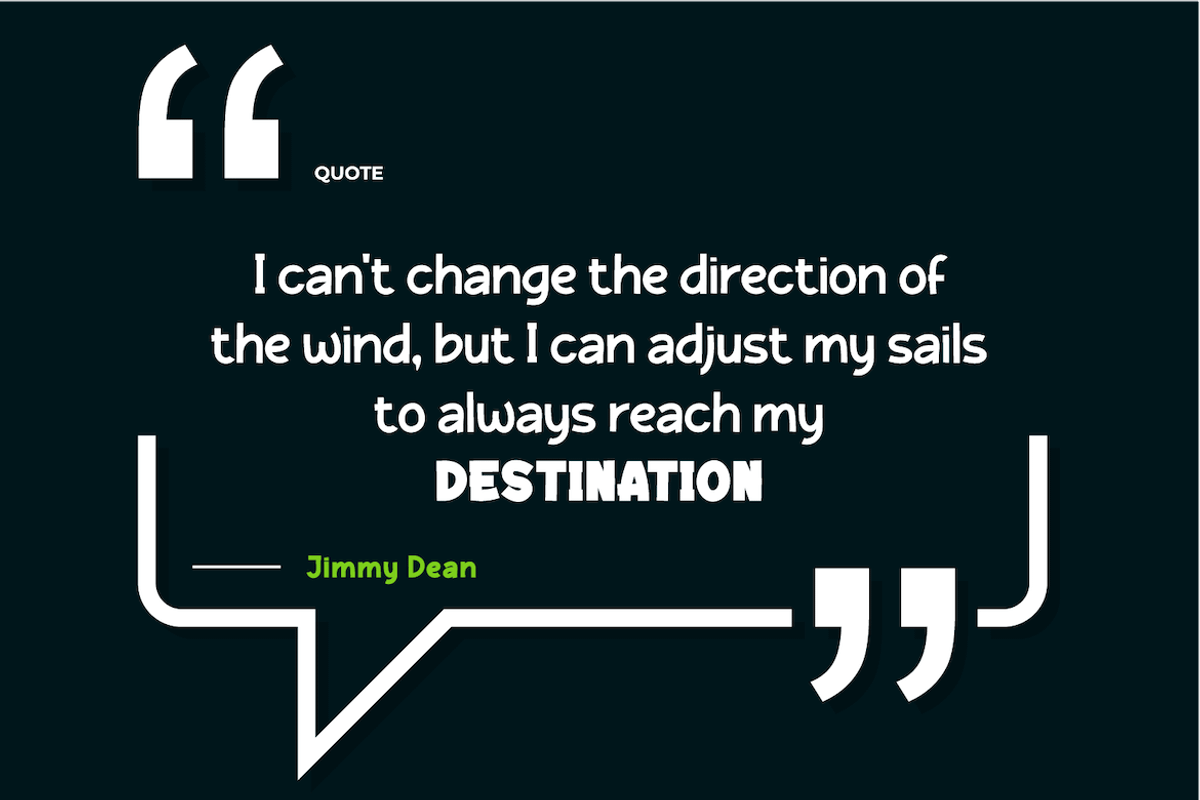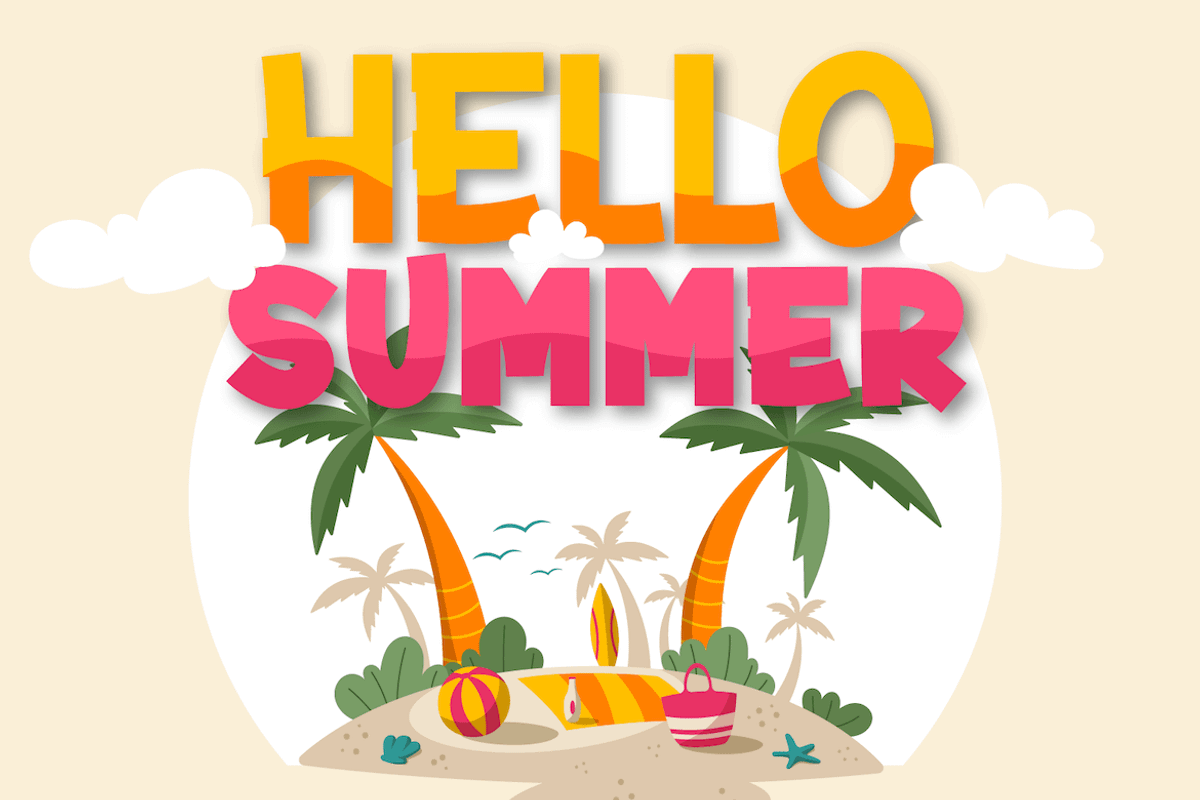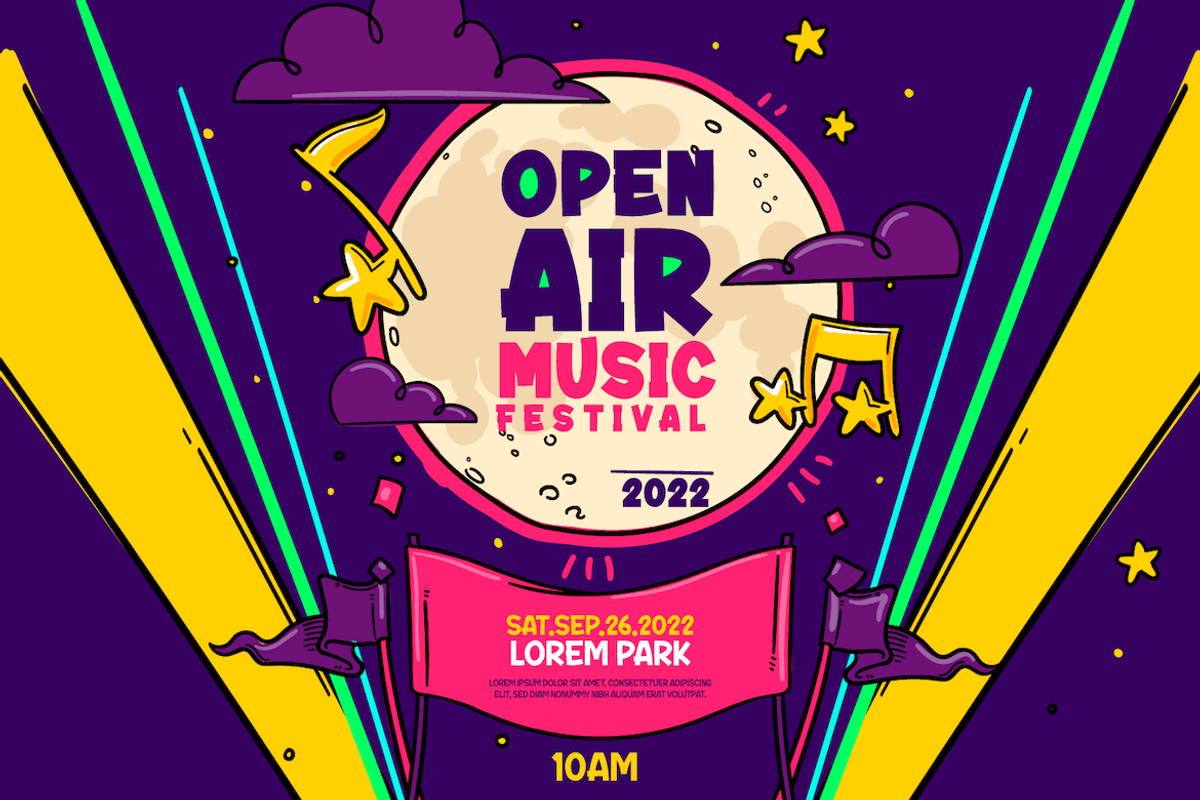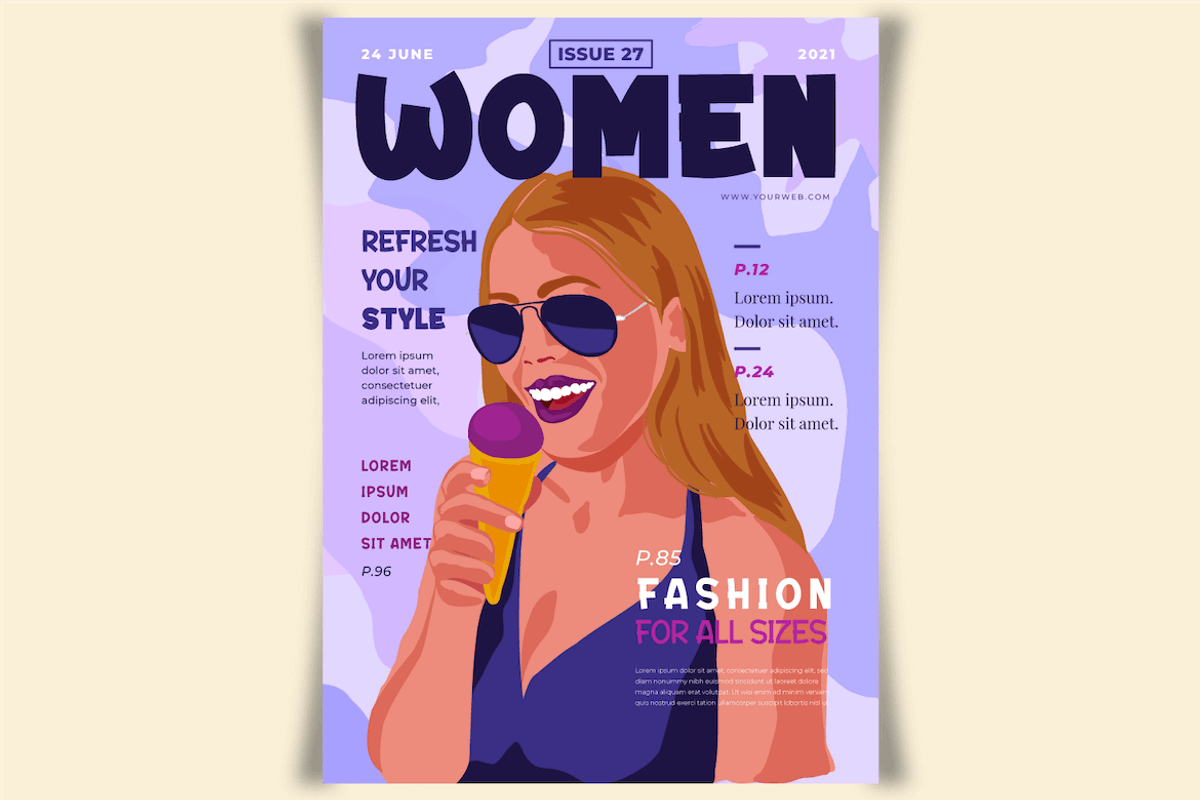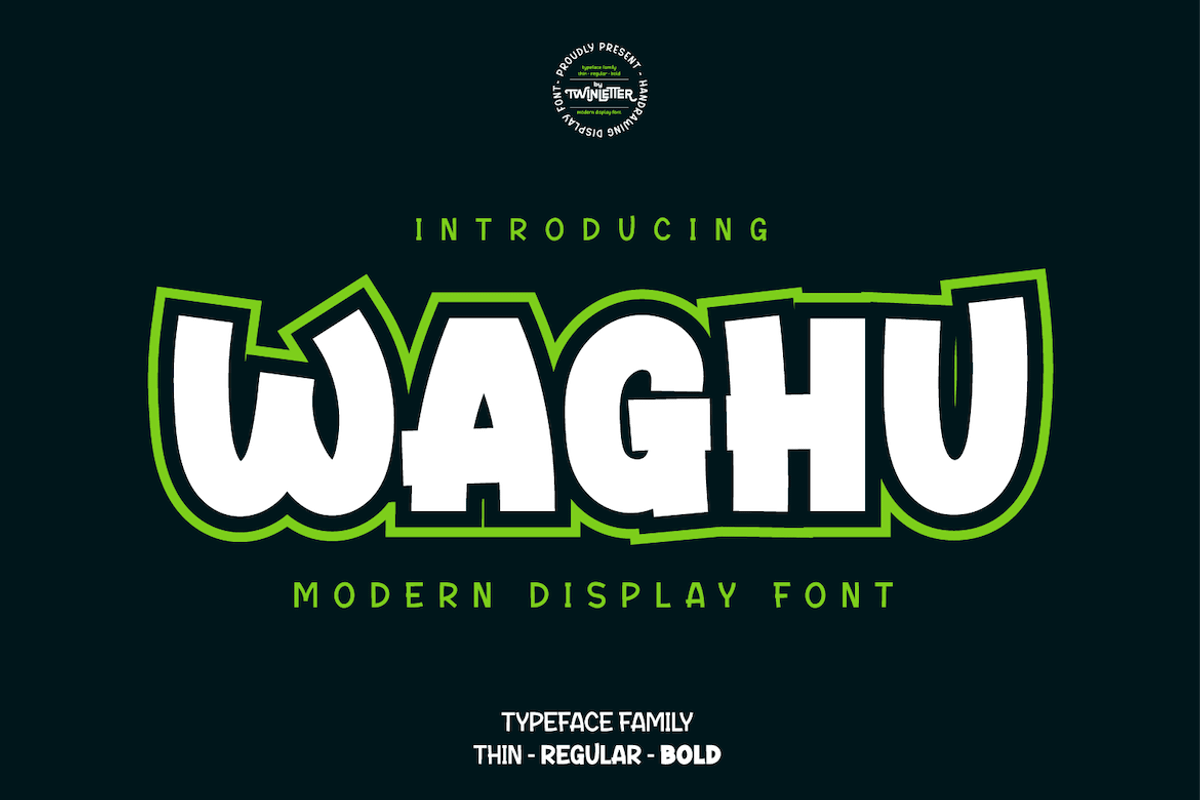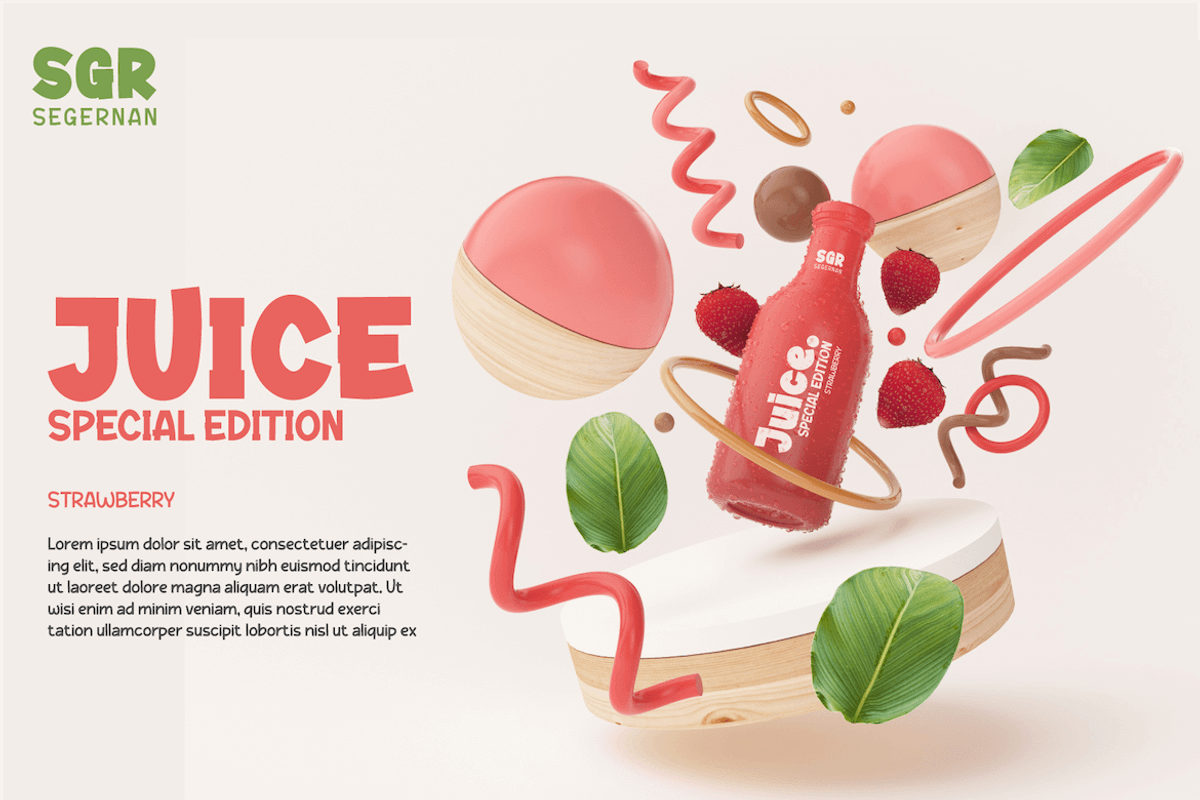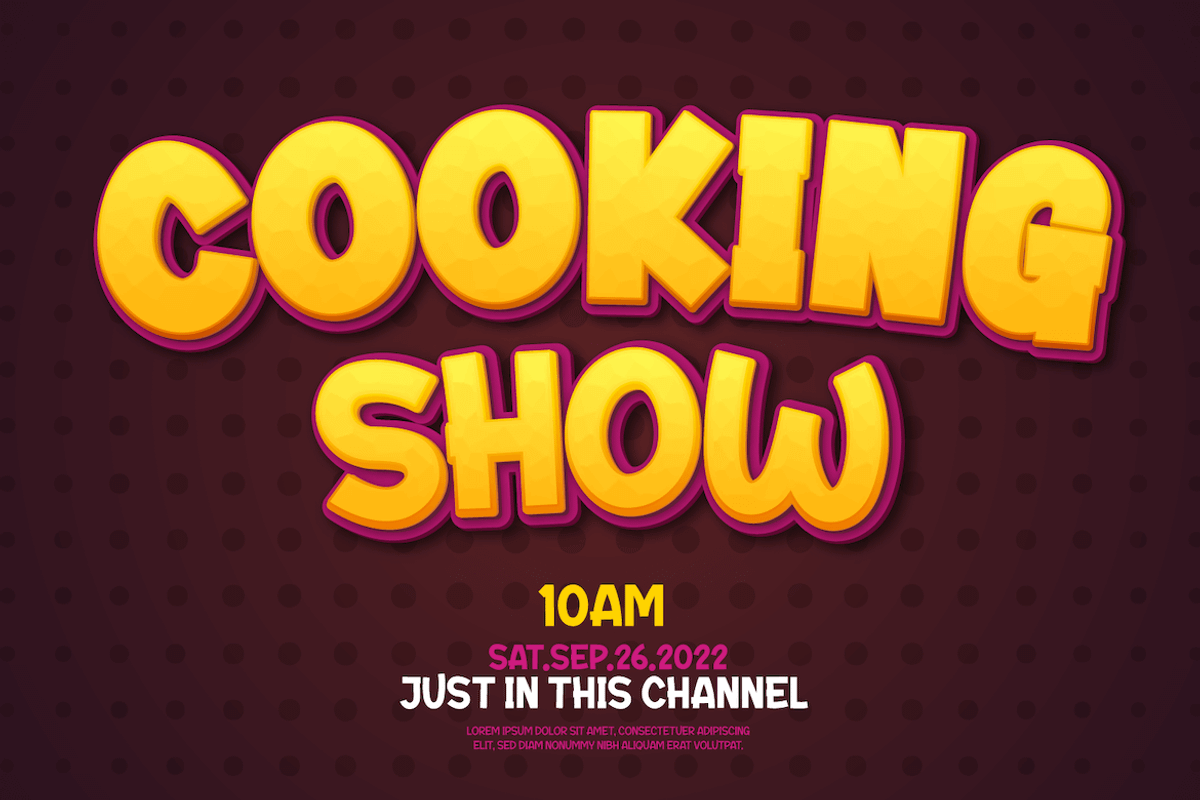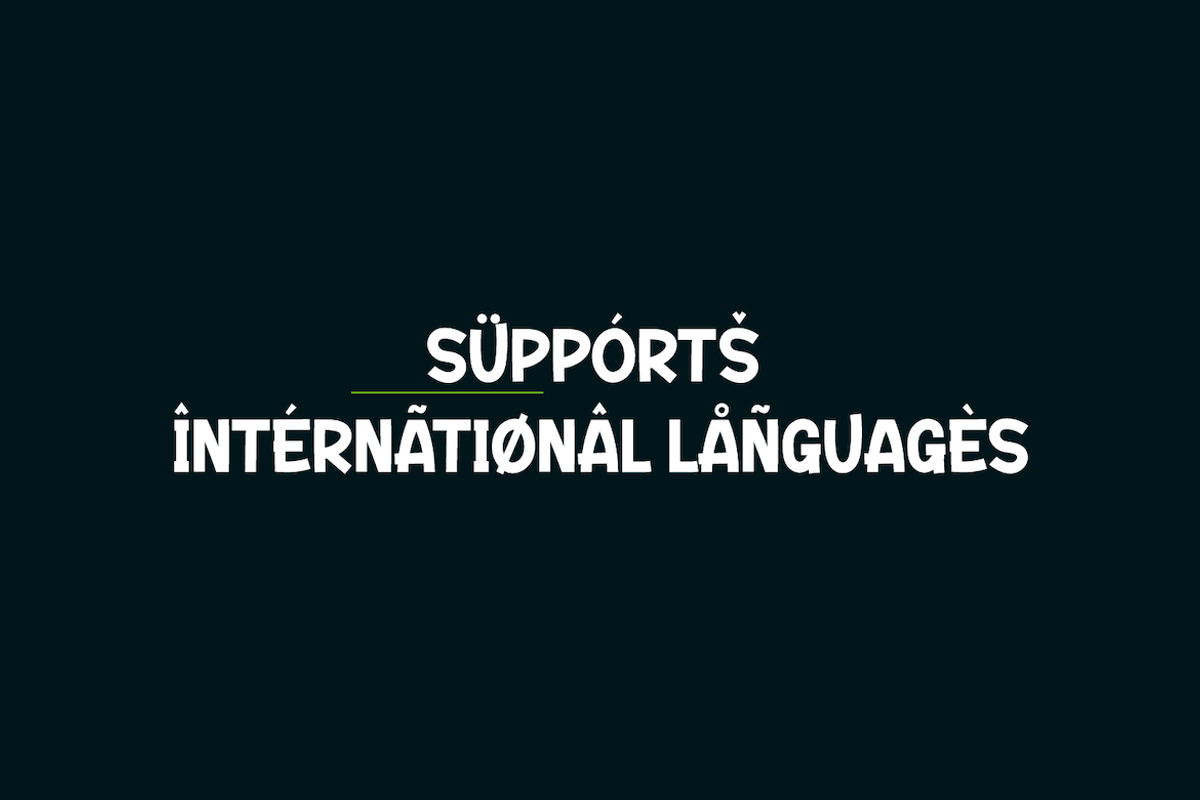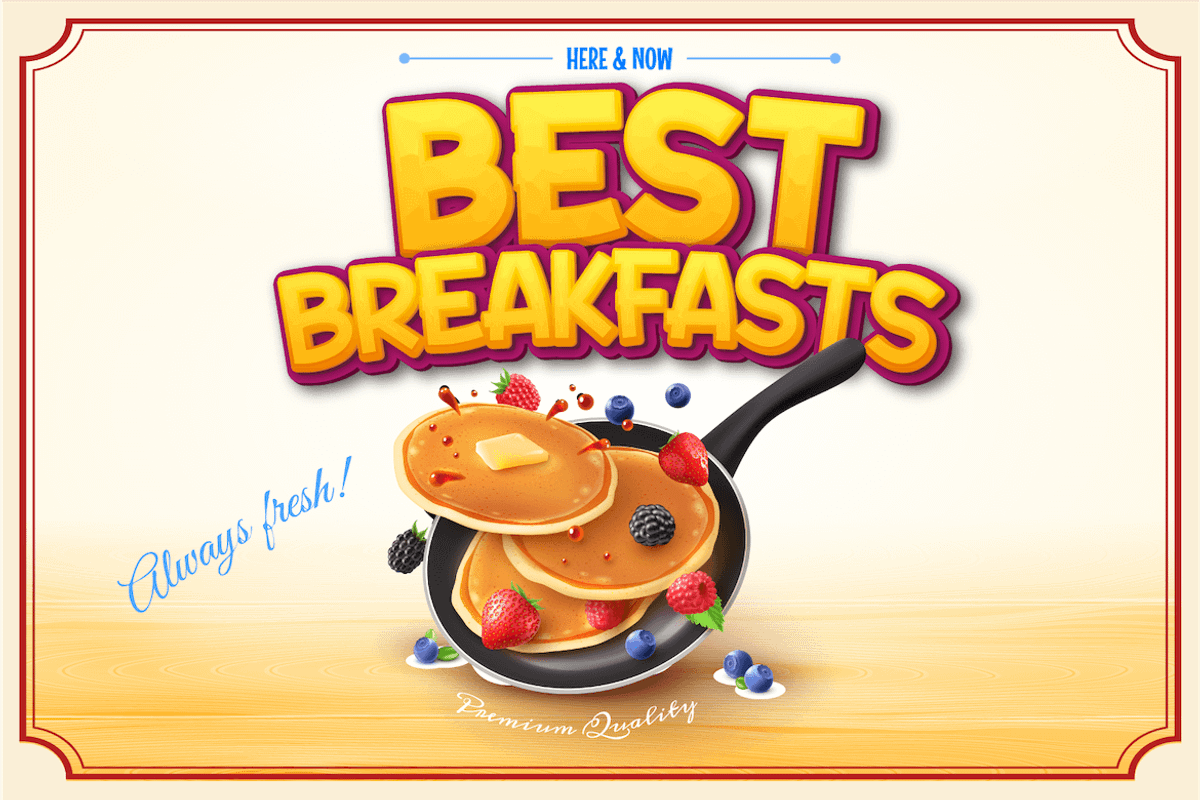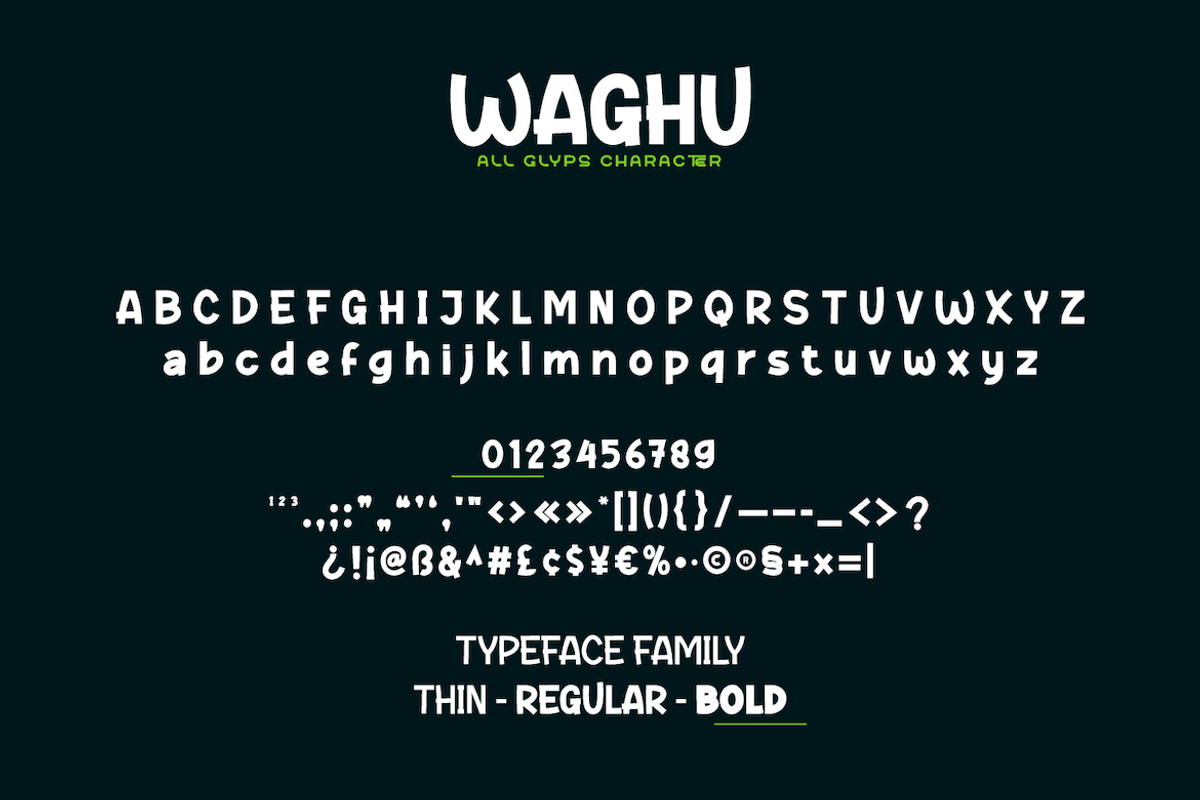
Waghu
Waghu is an abstract font that you can use for casual design purposes. It is also right for you to use it for formal design purposes, this font can adapt beautifully if you use it in your project. there are three alternatives thin, regular, and bold. makes it easier for you to combine them according to your needs.
This handwritten font is perfect for children’s magazines, drink banners, games, posters, beverages, outdoor events, thumbnails, food banners, cheerful writing, film titles, quotes, titles, logos, and various kinds of projects you need, of course, your various design projects will be perfect and extraordinary if you use this font because this font is equipped with a complimentary font family, both for titles and subtitles and sentence text.